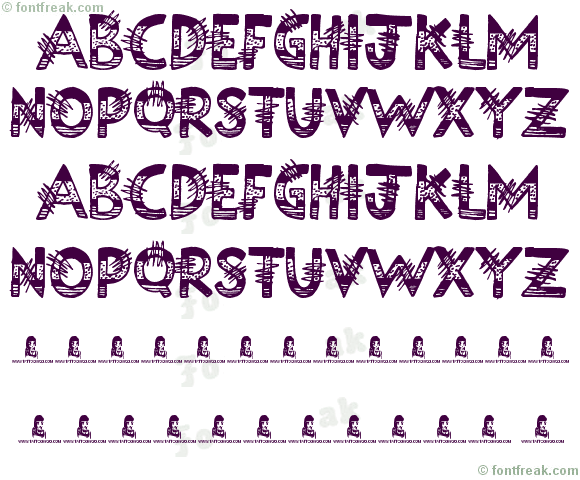
Science Project
About Science Project
The Science Project font, designed by Jonathan S. Harris, is a captivating display typeface that blends a playful aesthetic with a sense of curiosity, making it ideal for any project that aims to evoke a sense of exploration. This font falls into the decorative category, characterized by its unique, hand-drawn style that features irregular stroke weights and a whimsical flair. The design incorporates playful elements that resemble scientific illustrations, making it visually appealing and engaging.
The font boasts a moderate contrast, with its strokes varying from thick to thin, lending it a dynamic quality that captures attention. The spacing between characters is well-balanced, ensuring readability while maintaining its artistic charm. Decorative elements like irregular lines and playful flourishes add to its distinctive character, making it a perfect choice for projects centered around science themes, education, or creative endeavors.
The Science Project font shines in various applications. It is particularly well-suited for science fair posters, educational materials, and children's books, where its playful nature can engage young minds. Additionally, it works effectively in marketing materials for science-related businesses, such as educational workshops or tutoring services. Graphic designers will find it beneficial for crafting eye-catching presentations or social media graphics that require a touch of creativity.
Targeted primarily at graphic designers, educators, and content creators, this font appeals to anyone looking to infuse their projects with a sense of fun and curiosity. The Science Project font free download makes it accessible for those seeking unique typography without the constraints of licensing fees. Its distinctive style not only captures the essence of scientific exploration but also stands out in a crowded landscape of conventional fonts, making it a must-have for anyone looking to elevate their design projects.